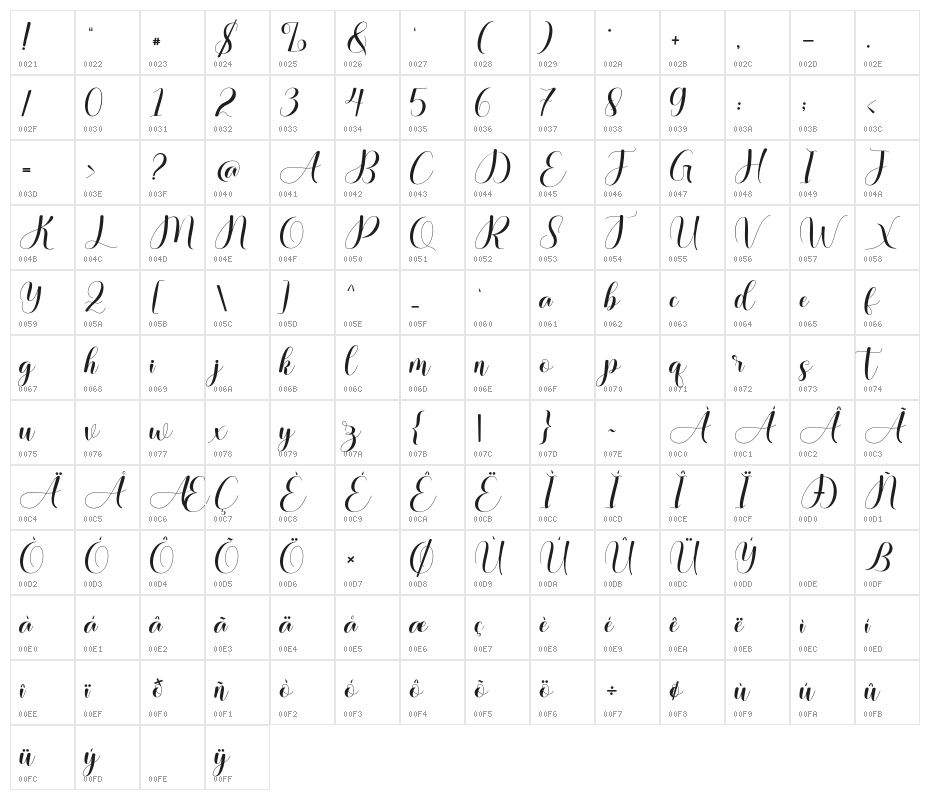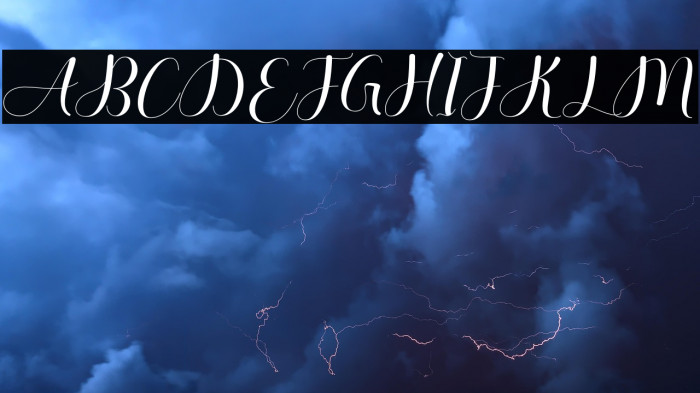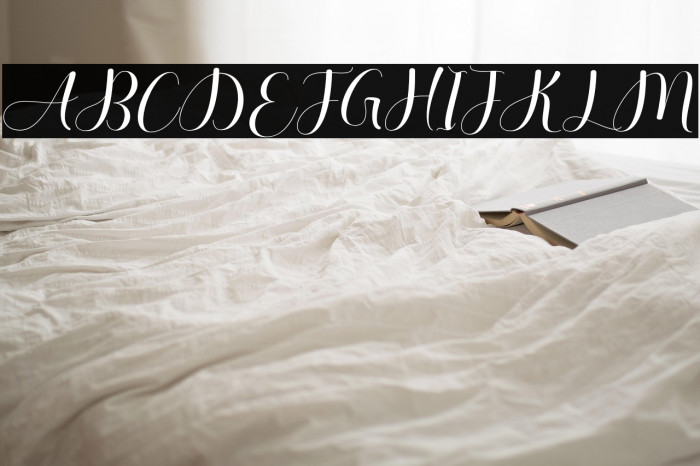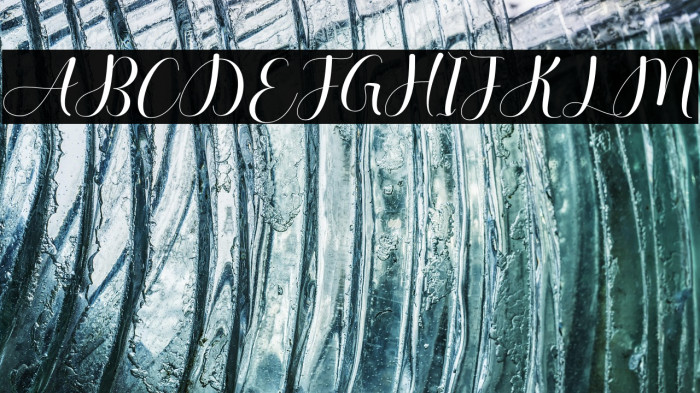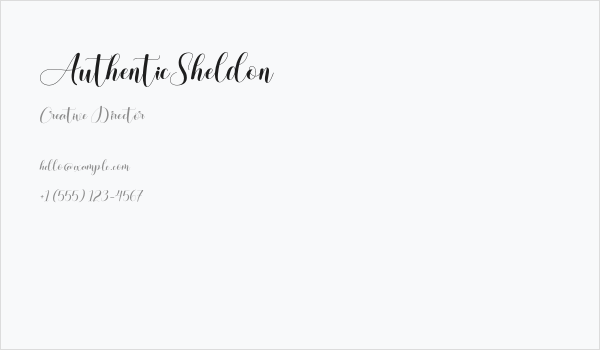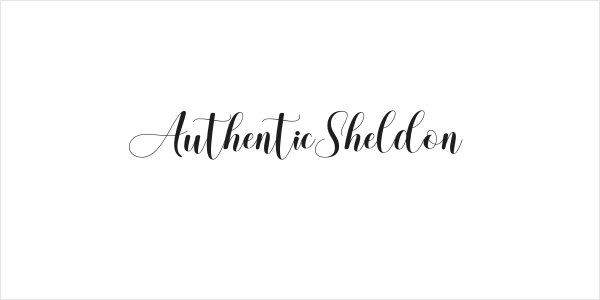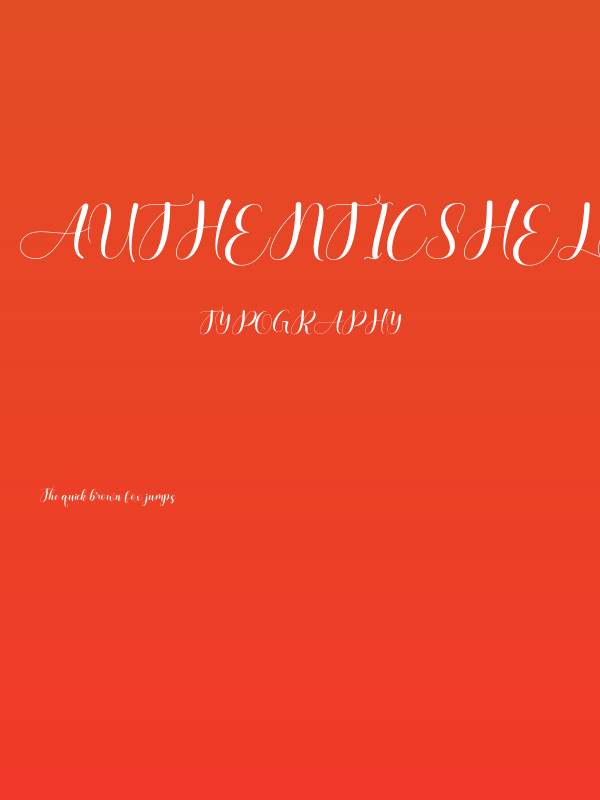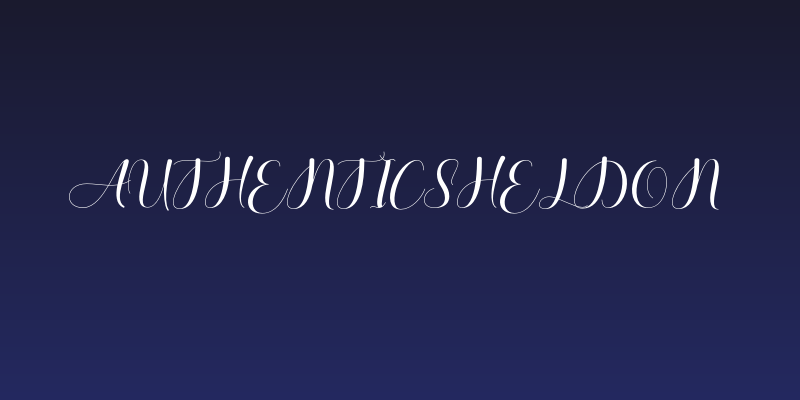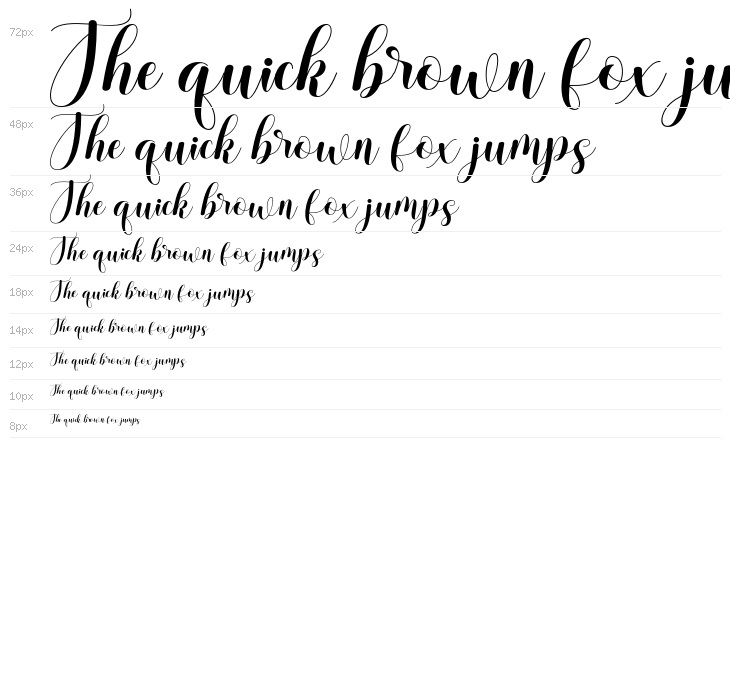
AuthenticSheldon Font
AuthenticSheldon Description
This elegant script font features a flowing, cursive style with high contrast between thick and thin strokes. The uppercase letters are characterized by their sweeping, decorative flourishes, giving them a sophisticated and artistic appearance. The lowercase letters maintain a consistent flow, with some characters extending below the baseline, adding to the font's graceful and fluid nature. The numerals are equally stylish, with a slight slant that complements the overall script style. Special characters are designed with the same attention to detail, ensuring a cohesive look across all glyphs. This font is perfect for projects that require a touch of elegance and sophistication.
| Overall Style | Elegant, Artistic |
| Proposed Projects | Ideal for wedding invitations, elegant branding, greeting cards, and luxury product packaging. |